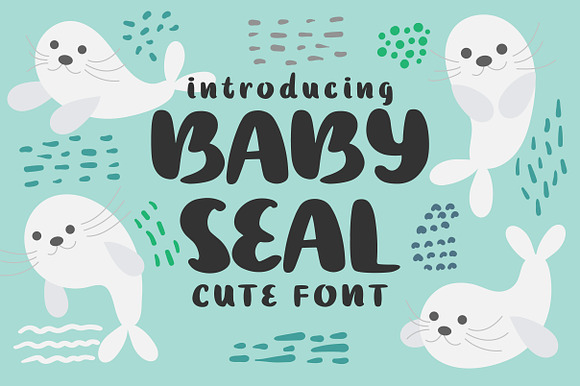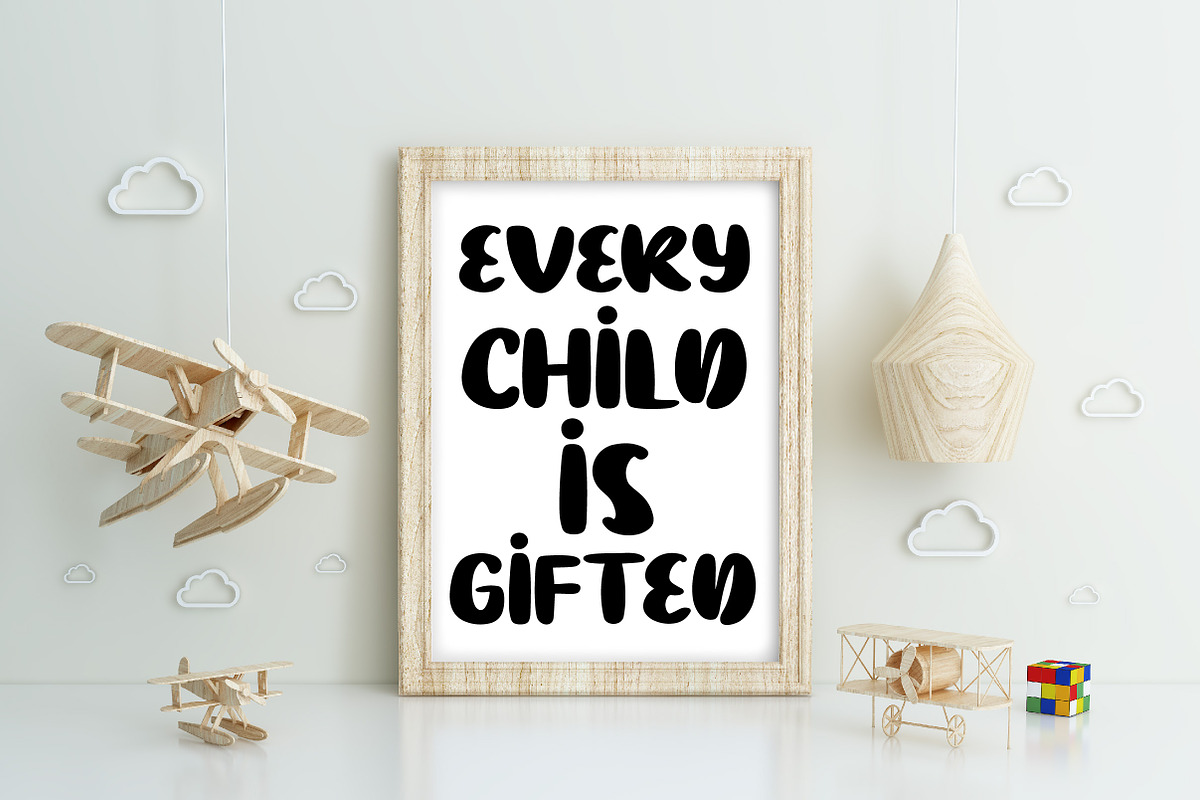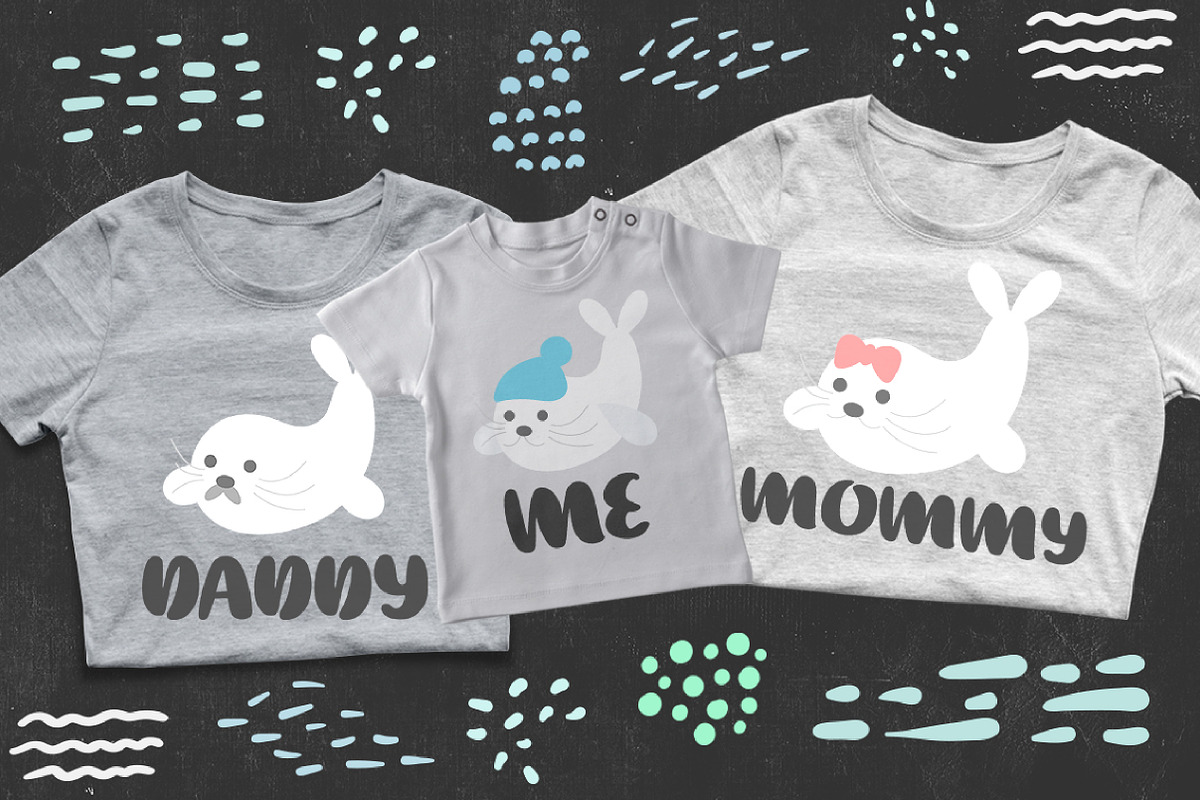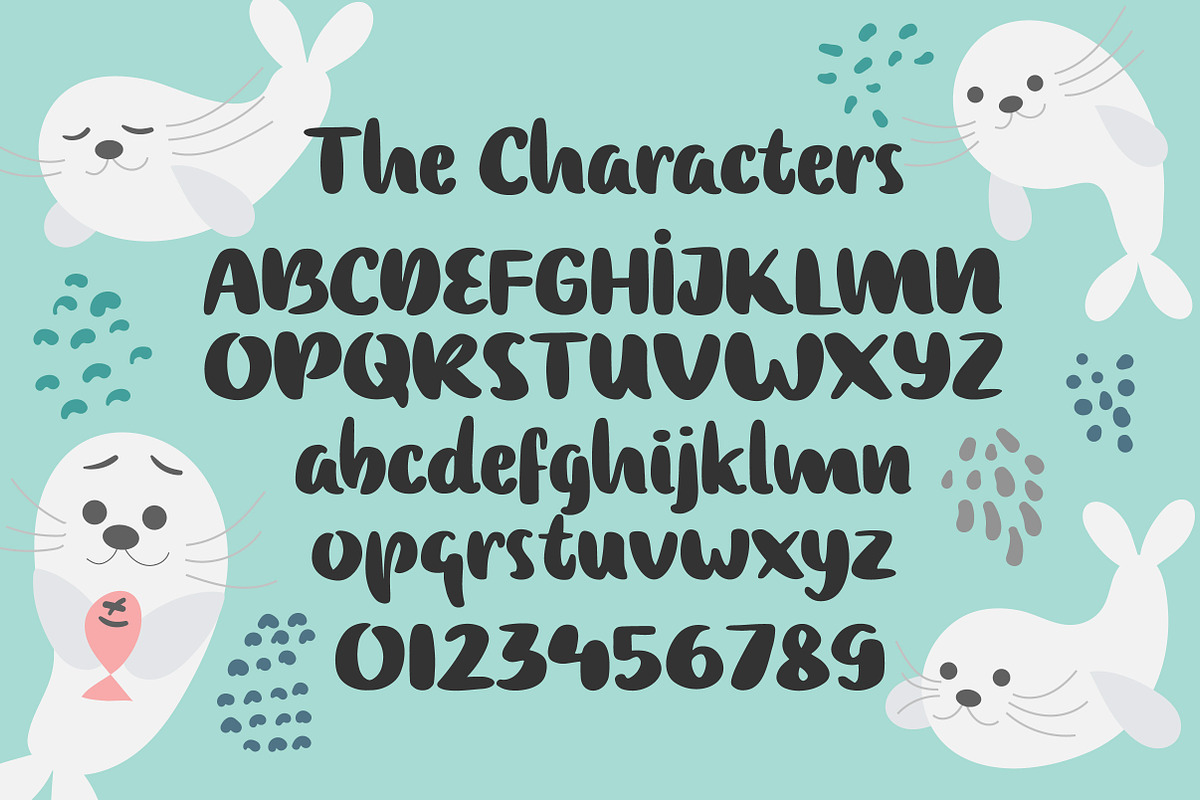
Baby Seal Font
Hi! This is baby seal ,a cute handwritten font with cute seal icons as bonus.
Why Baby Seal Font is worth a look
Baby Seal Font by caocastudio fits naturally into Branding, posters, packaging, typography.